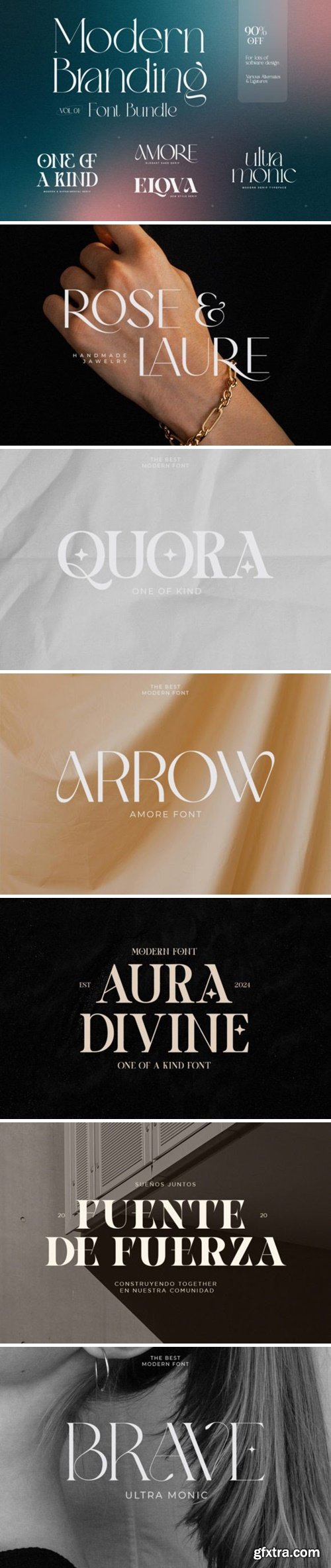
现代品牌字体集合
Experience the Modern Branding Font Bundle, an eloquent fusion of sophistication, simplicity, and precision, designed to accentuate your brand’s personality. This assortment showcases an eclectic mix of typefaces, each thoughtfully designed with an array of alternates and ligatures. Fathom the unlimited potential for articulating an authentic reflection of your brand. Whether you’re working on branding, editorial design, or web projects, this font adapts seamlessly, enhancing the visual appeal of your creations. Its concise yet expressive design ensures readability and captivates your audience with a unique and engaging visual experience.